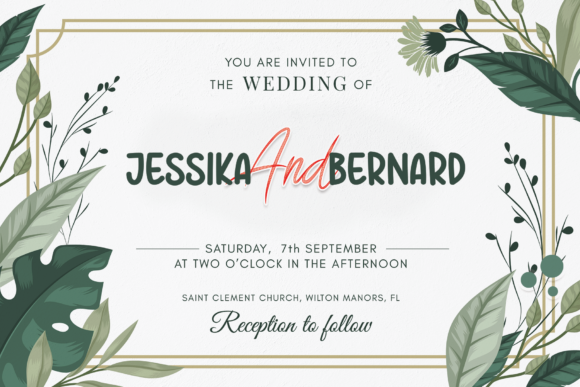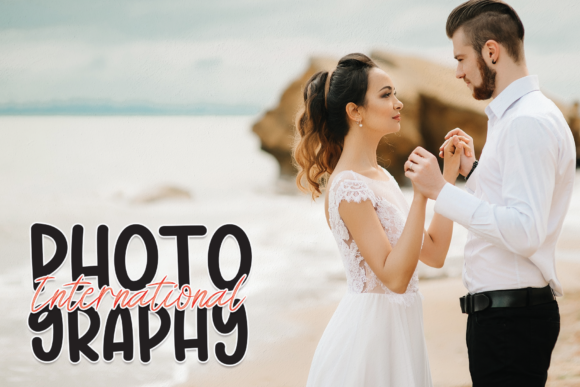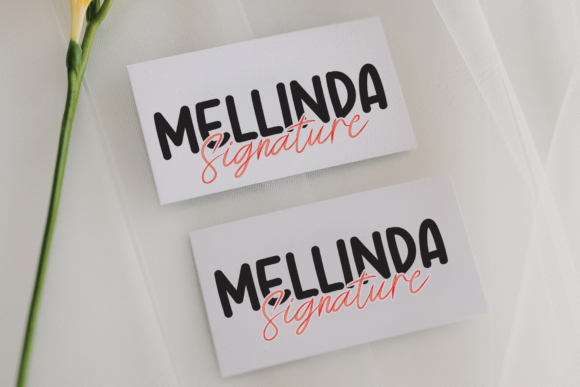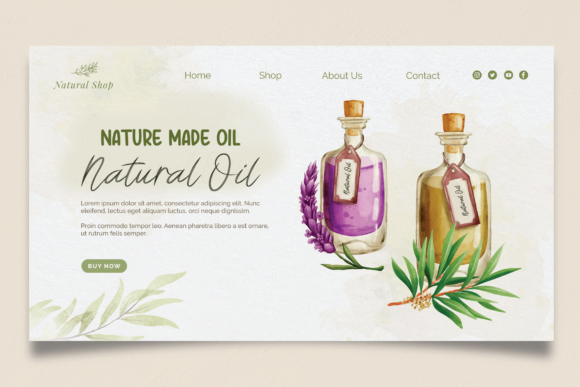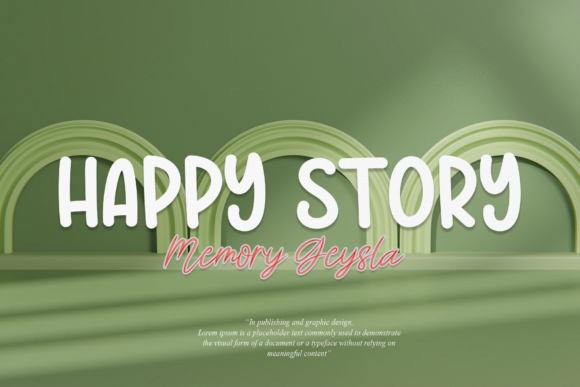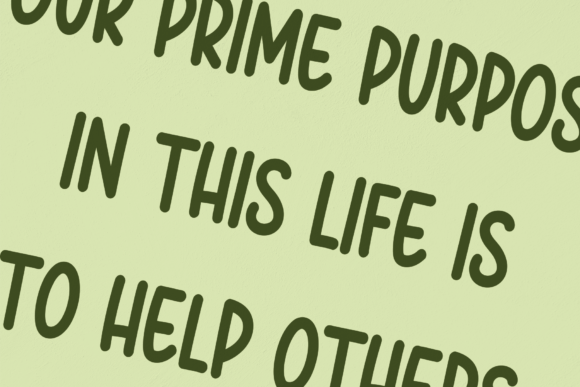
Introducing the Farmhouse Christmas Font: A Perfect Blend of Elegance and Friendliness
Are you looking for a font that can add a touch of rustic charm and festive spirit to your designs? Look no further than the Farmhouse Christmas Font. This stunning duo font, consisting of a script and a sans serif font, is ideal for giving your projects a branded but friendly feel. In this article, we’ll explore the features and benefits of the Farmhouse Christmas Font and how it can elevate your designs.
A Comprehensive Duo Font
The Farmhouse Christmas Font is a comprehensive duo font that includes two distinct styles: a script font and a sans serif font. The script font is elegant and flowing, perfect for adding a touch of sophistication to your designs. The sans serif font, on the other hand, is clean and modern, ideal for creating a friendly and approachable feel. Both fonts are designed to work perfectly together, but they can also be used individually to create a unique look.
Perfect for Branding and Design Projects
The Farmhouse Christmas Font is perfect for designers and crafters who want to create branded and festive designs. The font’s rustic charm and friendly feel make it ideal for a wide range of projects, including holiday cards, invitations, and gift tags. The font’s versatility also makes it suitable for use in various design projects, such as logos, branding materials, and social media graphics.
Key Features of the Farmhouse Christmas Font
- Comprehensive duo font: Includes a script and a sans serif font
- Elegant and friendly feel: Perfect for creating a branded but friendly feel
- Versatile: Suitable for a wide range of design projects
- High-quality: Professionally designed and tested for quality
Benefits of Using the Farmhouse Christmas Font
Using the Farmhouse Christmas Font can bring numerous benefits to your designs. Here are a few:
- Stand out from the crowd: The font’s unique and rustic charm can help your designs stand out from the crowd
- Save time: The font’s comprehensive duo style means you can create a wide range of designs without having to switch fonts
- Enhance your brand: The font’s friendly and elegant feel can help enhance your brand’s image and personality
How to Use the Farmhouse Christmas Font
Using the Farmhouse Christmas Font is easy. Here are a few tips to get you started:
- Pair the fonts: Combine the script and sans serif fonts to create a unique and elegant look
- Use it for headings: The font’s bold and elegant style makes it perfect for headings and titles
- Add a personal touch: Use the font to add a personal touch to your designs, such as in holiday cards and invitations
The Farmhouse Christmas Font is a stunning and comprehensive duo font that’s perfect for designers and crafters who want to add a touch of rustic charm and festive spirit to their designs. With its elegant and friendly feel, versatile style, and ease of use, this font is ideal for a wide range of design projects. Whether you’re creating holiday cards, logos, or social media graphics, the Farmhouse Christmas Font is sure to elevate your designs and help you stand out from the crowd.